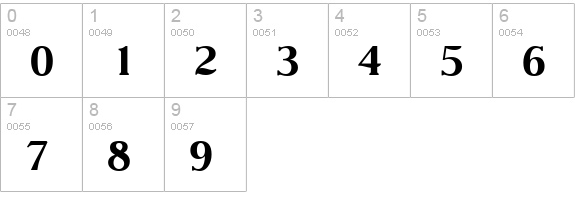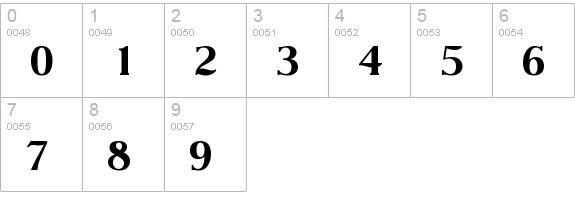
NevadaSerial-Bold is a strong, high-contrast variant in the NevadaSerial typeface family \xE2\x80\x94 well suited to headlines, attention-grabbing titles, and strong calls-to-action.
NevadaSerial-Bold is a striking and modern font that exudes confidence and strength. With its bold and distinctive design, this font is perfect for making a statement in various design projects. Whether used for headlines, posters, or branding materials, NevadaSerial-Bold commands attention and leaves a lasting impression. What sets NevadaSerial-Bold apart is its versatility and readability, making it suitable for a wide range of applications. Its clean lines and sharp edges give it a contemporary and professional look, while its bold weight ensures that your message stands out. Best of all, NevadaSerial-Bold is available for free download at FontsMarket.com. This means you can easily access this high-quality font without any cost, making it a valuable addition to your font collection. Don't miss out on the opportunity to enhance your designs with the bold and impactful NevadaSerial-Bold font.